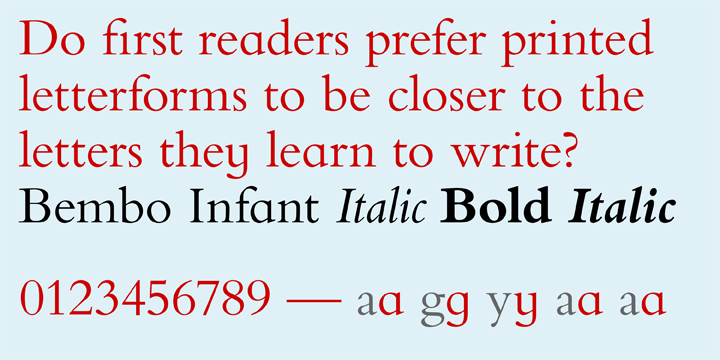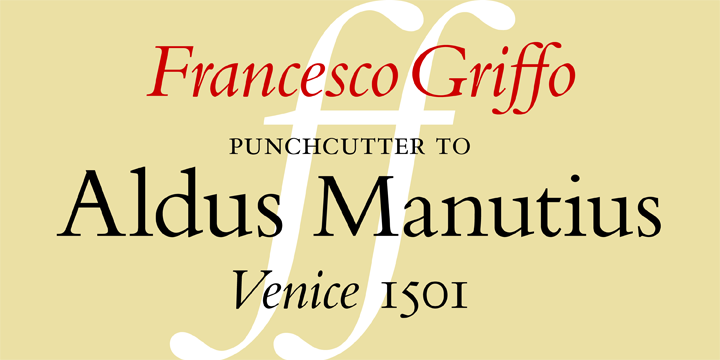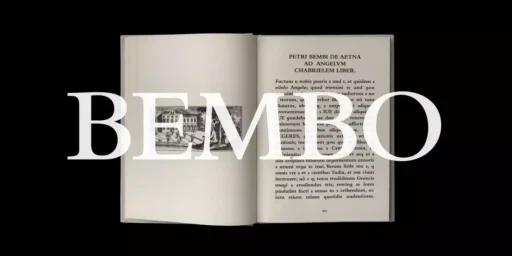
Bembo Font
Bembo is a serif font family which has not gone out of style and is famous for its beauty and legibility as well as being a classic font. The British Monotype Corporation designed it in 1929, deriving it from the type that Aldus Manutius employed in Venice in 1495. Francesco Griffo first introduced this classical design for the book “De Aetna” by Pietro Bembo.
The history of Bembo starts in 1495 when Francesco Griffo, a Venetian punchcutter, created a Roman typeface for the printer Aldus Manutius. This typeface, known as the Aldine Roman, was used in printing Pietro Bembo’s ‘De Aetna’, which tells of Bembo’s journey to Mount Etna. It was elegant and clear and gained popularity in the field of printing books.
In 1929, the Monotype Corporation, under the direction of Stanley Morison, one of the most renowned typographers and printing historians of the period, reissued Griffo’s Aldine Roman for use in modern printing. This revival, named Bembo after Pietro Bembo, attempted to reproduce the idea of the face but modified it to meet the requirements of typesetting in machines and printing. The result was a typeface that kept the qualities of the Aldine Roman as the ultimate model for the book typeface yet provided enhanced legibility as well as greater versatility.
The design has clean lines with excellent proportions and open counters with rather hidden details. The serifs are not too aggressive or severe but also not too gentle; they are moderately bracketed, which means that the font’s design is not limited to purely classical or purely modern aesthetics. Humanist calligraphy inspired the letterforms of the typeface, which makes the typeface look quite friendly.
Bembo offers a wide range of weights, from hairline to black style, compatible for use in both text and display. It also has many variations of the letters, ligatures, and small capitals, which make it versatile. The italic version of Bembo, developed by calligrapher Giovanni Antonio Tagliente in the 16th century, stands out as a notable example.
The Bembo typeface boasts clear and easy-to-read letters, making it suitable for the body text in books and other printed documents. It has a very aesthetic look and is ideal for headlines, titles, and other display uses.
Bembo is one of the most used fonts on websites, blogs, and eBooks in the digital media platform. Another feature is that it does not have a complex layout with images and counters and is also suitable for mobile screens where the text is easy to read. Bembo is, therefore, suitable for branding and logo design because of its elegance and history.
Thus, Bembo has remained popular and has led to the creation of other fonts with similar designs.
Garamond: A more classical old-style serif typeface with a similar humanistic flavour but slightly more elegant ratios.
Jenson: Another example of the old-style serif typeface is reminiscent of the type design of Nicolas Jenson, the 15th-century printer.
Palatino: A classical serif font is one of the most common fonts due to its readability.
Where Bembo Font works best
Bembo Font gives long-form text a classic, trustworthy rhythm — ideal for magazine spreads, annual reports and book interiors.
Pair Bembo Font with generous letter-spacing for wordmarks in fashion, hospitality, wine and jewellery branding.
Use Bembo Font for slide titles in Keynote, PowerPoint or Google Slides to add authority without looking dated.
What is Bembo Font good for?